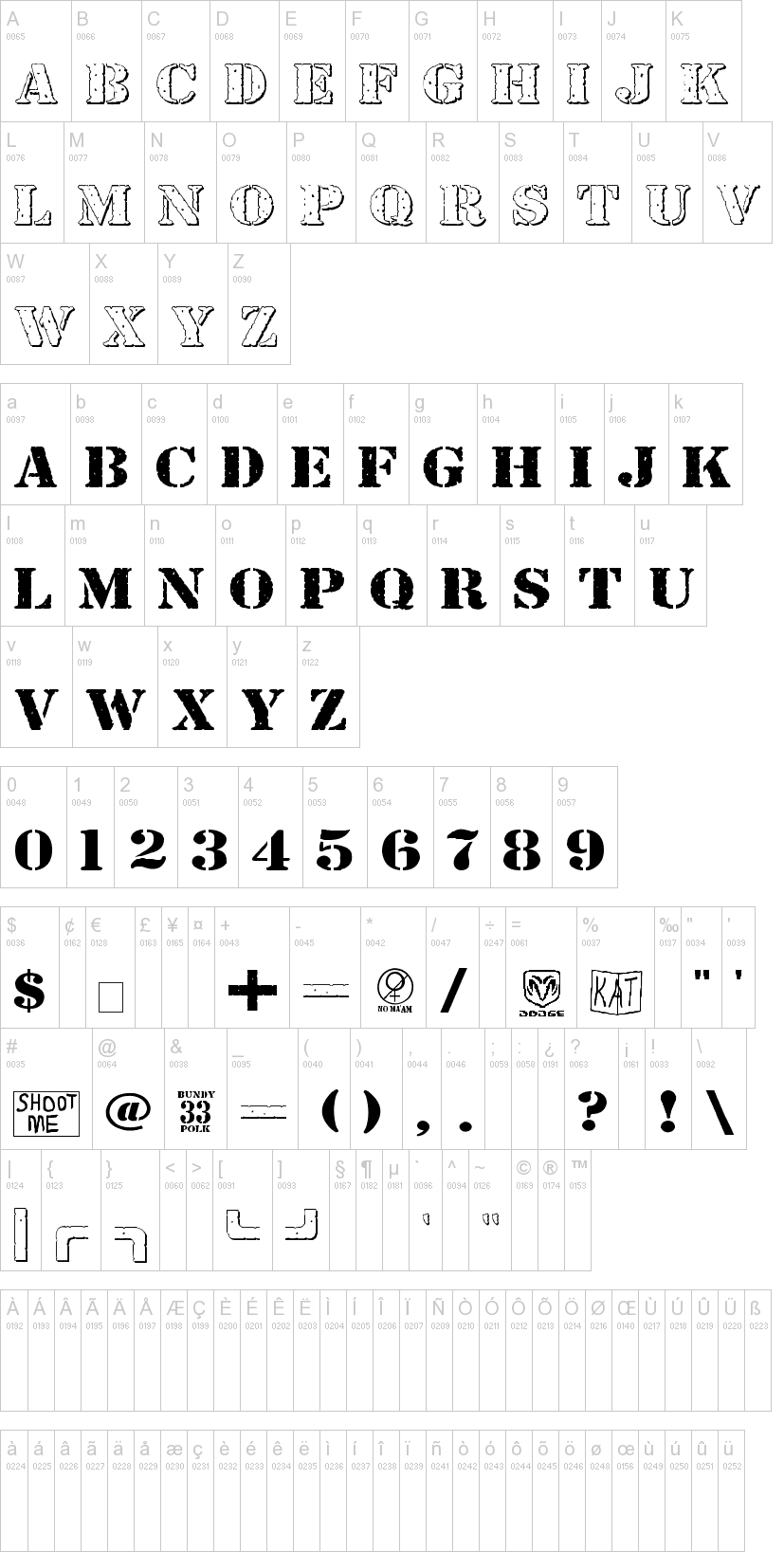
Bundy Yellow Font
Bundy Yellow Font - Web bundy yellow font family. Bundy yellow font download is available free from fontget. Bundy yellow is a free font for. Download free bundy yellow font by mad mutt. It is decorative font and has 2 styles. Web 2 font files. It was released in 2020 and is perfect for creating.
Bundy yellow is a free font for. It was released in 2020 and is perfect for creating. Bundy yellow font download is available free from fontget. Web bundy yellow font family. Download free bundy yellow font by mad mutt. It is decorative font and has 2 styles. Web 2 font files.
Bundy yellow is a free font for. It was released in 2020 and is perfect for creating. Web bundy yellow font family. It is decorative font and has 2 styles. Bundy yellow font download is available free from fontget. Download free bundy yellow font by mad mutt. Web 2 font files.
Web 2 font files. Web bundy yellow font family. It is decorative font and has 2 styles. It was released in 2020 and is perfect for creating. Bundy yellow font download is available free from fontget.
Bundy Yellow Solid font
It is decorative font and has 2 styles. Bundy yellow is a free font for. It was released in 2020 and is perfect for creating. Web bundy yellow font family. Bundy yellow font download is available free from fontget.
Bundy yellow is a free font for. Bundy yellow font download is available free from fontget. Web 2 font files. Web bundy yellow font family. Download free bundy yellow font by mad mutt.
Web bundy yellow font family. It is decorative font and has 2 styles. It was released in 2020 and is perfect for creating. Download free bundy yellow font by mad mutt. Bundy yellow is a free font for.
Bundy Yellow free font
It is decorative font and has 2 styles. Web bundy yellow font family. Bundy yellow is a free font for. It was released in 2020 and is perfect for creating. Download free bundy yellow font by mad mutt.
Download free bundy yellow font by mad mutt. Bundy yellow font download is available free from fontget. Bundy yellow is a free font for. Web 2 font files. Web bundy yellow font family.
Download free bundy yellow font by mad mutt. Bundy yellow font download is available free from fontget. It is decorative font and has 2 styles. Web 2 font files. Web bundy yellow font family.
It is decorative font and has 2 styles. Web 2 font files. Bundy yellow font download is available free from fontget. Download free bundy yellow font by mad mutt. It was released in 2020 and is perfect for creating.
Bundy Yellow free font
Bundy yellow is a free font for. Download free bundy yellow font by mad mutt. Web bundy yellow font family. Web 2 font files. Bundy yellow font download is available free from fontget.
It Is Decorative Font And Has 2 Styles.
Bundy yellow is a free font for. It was released in 2020 and is perfect for creating. Bundy yellow font download is available free from fontget. Download free bundy yellow font by mad mutt.
Web bundy yellow font family.